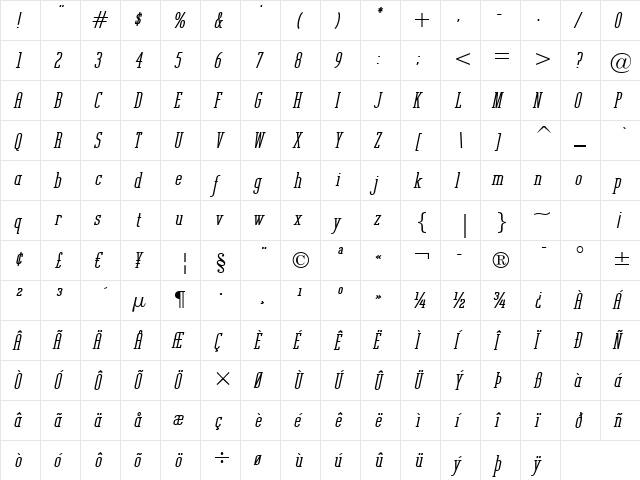
Unknown Caller BTN XBd Oblique
Design Context for Unknown Caller BTN XBd Typeface
Unknown Caller BTN XBd is a composed and adaptable typeface that performs quietly and consistently across a wide range of design contexts. Its italic angle brings a sense of urgency and motion to the letterforms. The heavy weight commands attention and anchors typographic hierarchies.
Pro Tip: Use Unknown Caller BTN XBd for emphasis, pull quotes, and subheadings where its slanted energy can add rhythm to the layout.